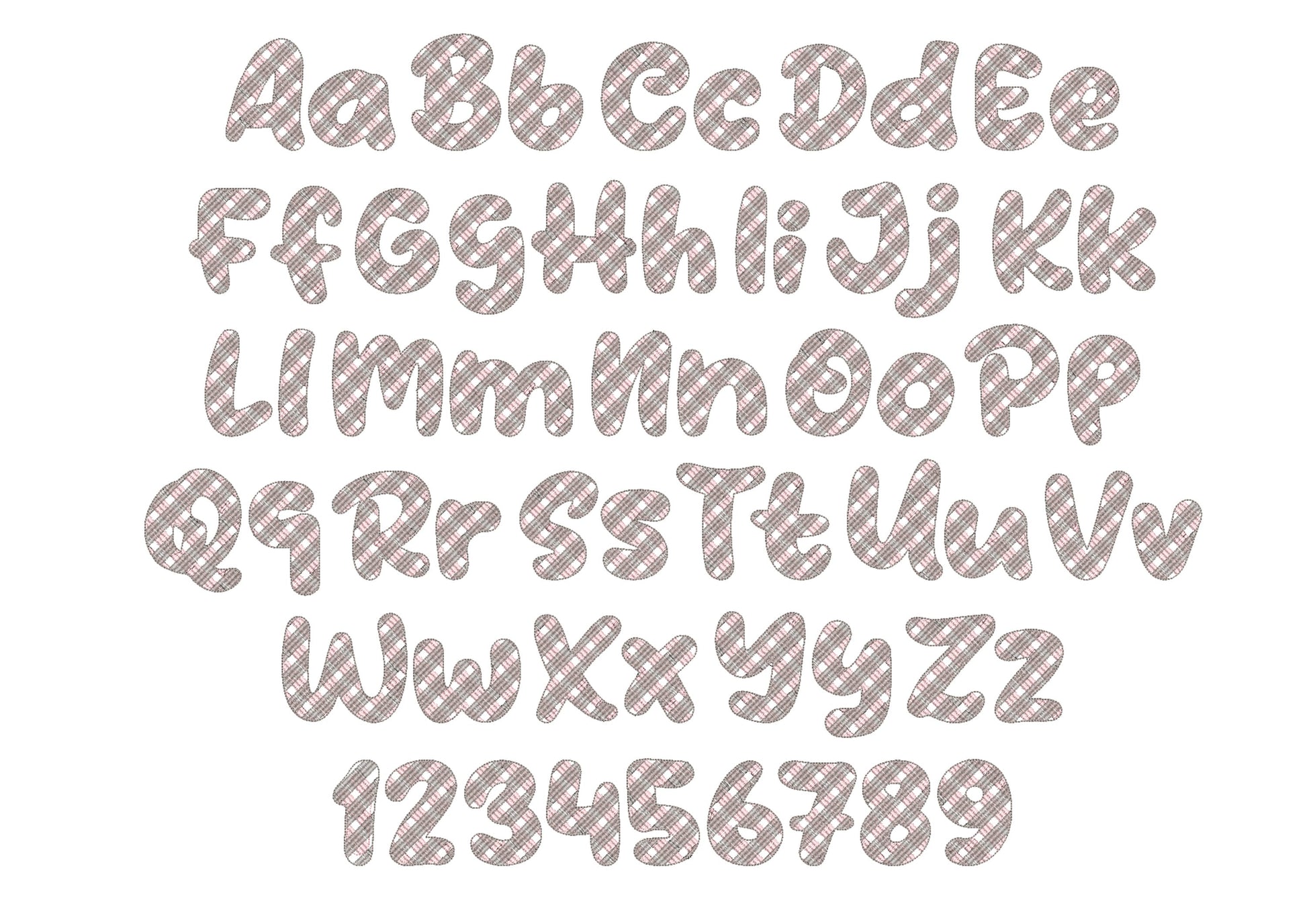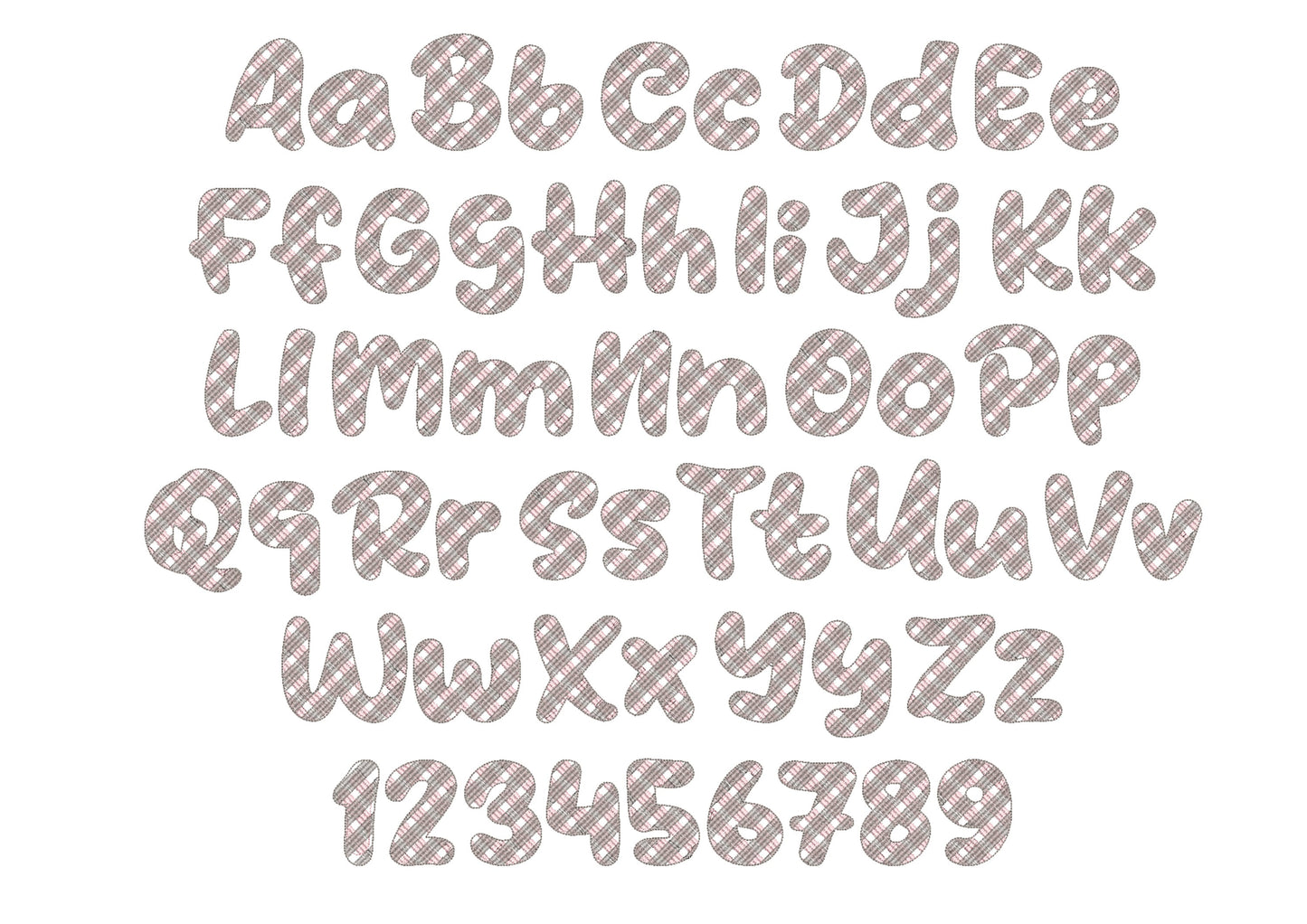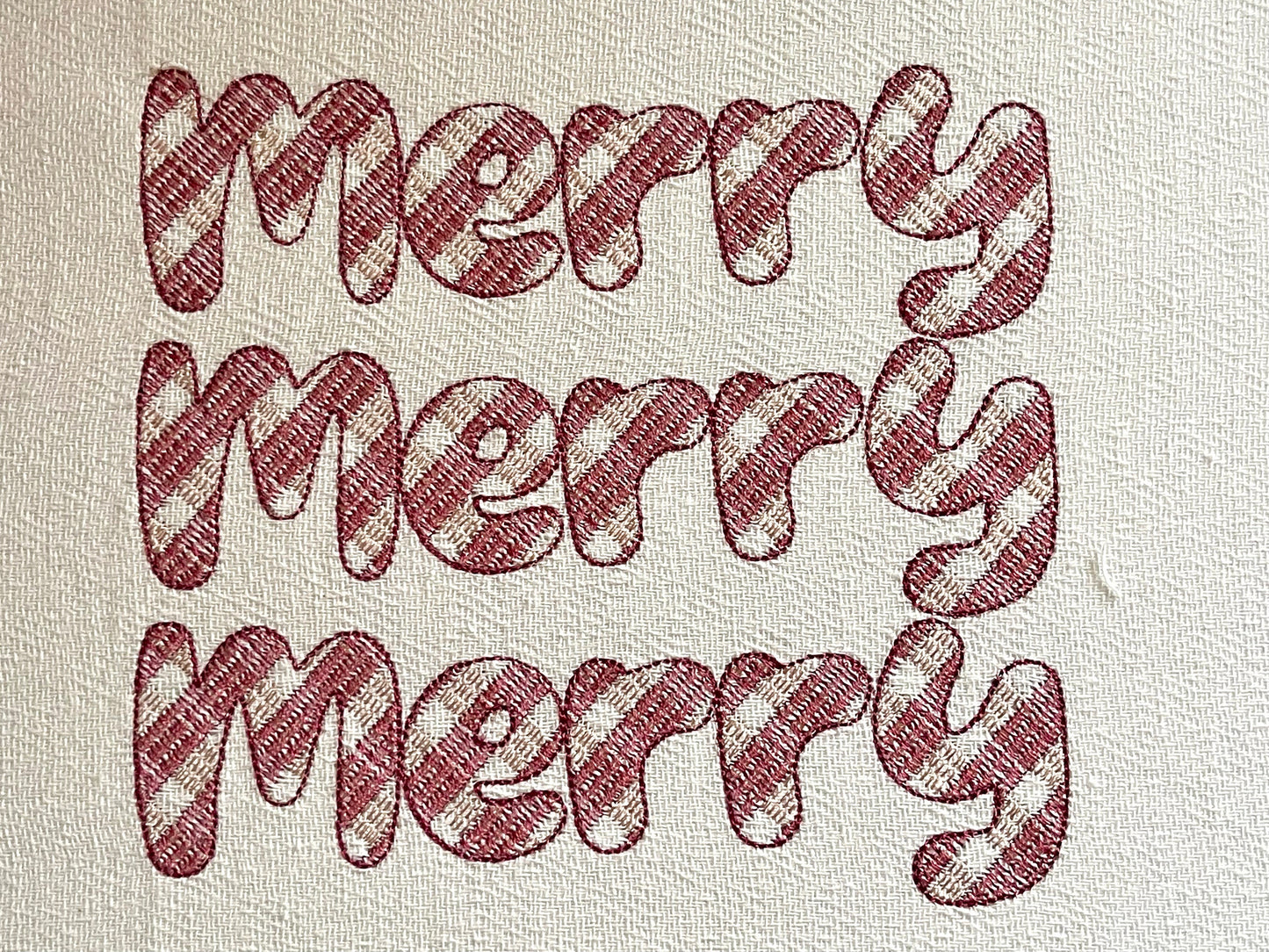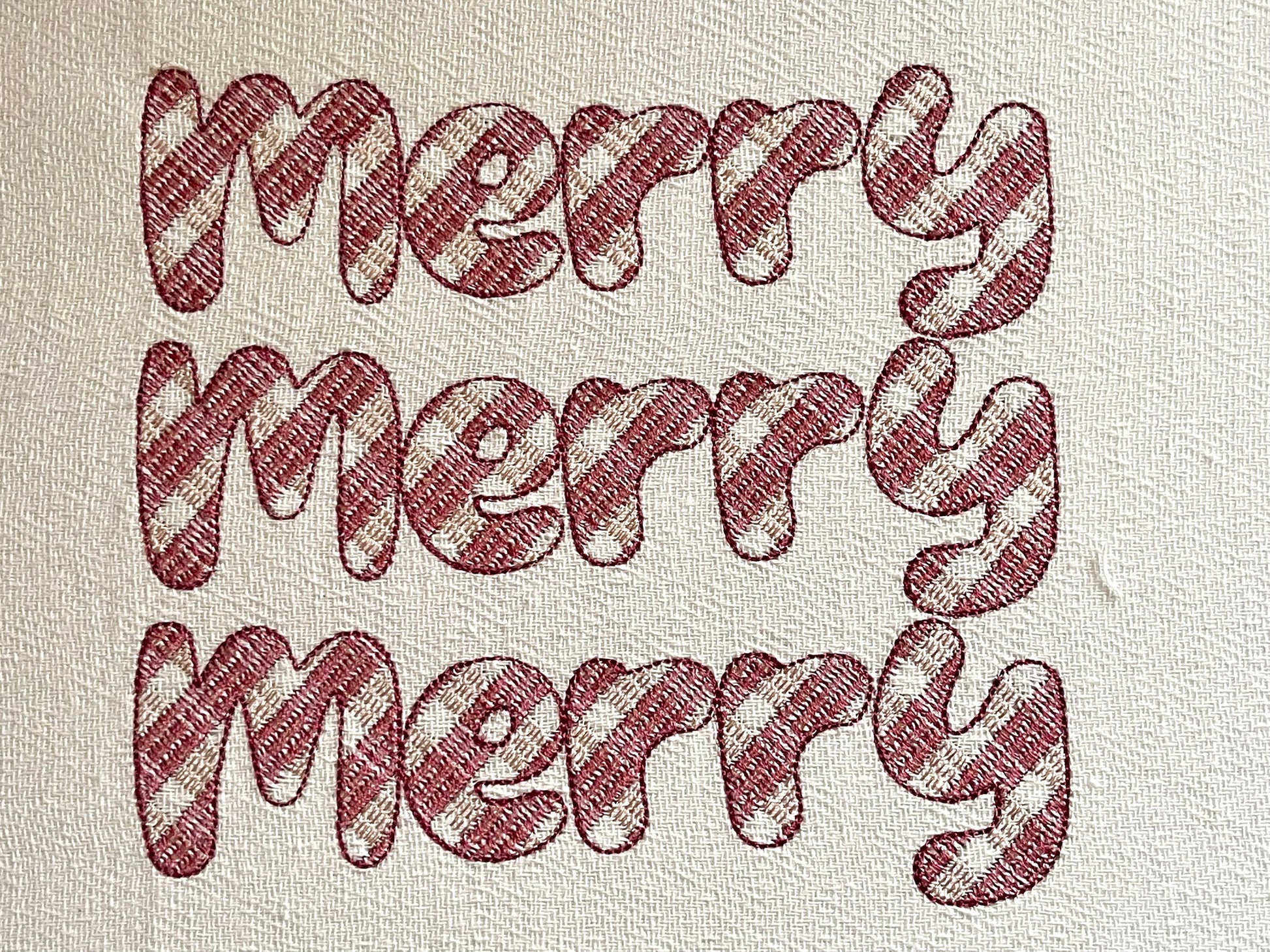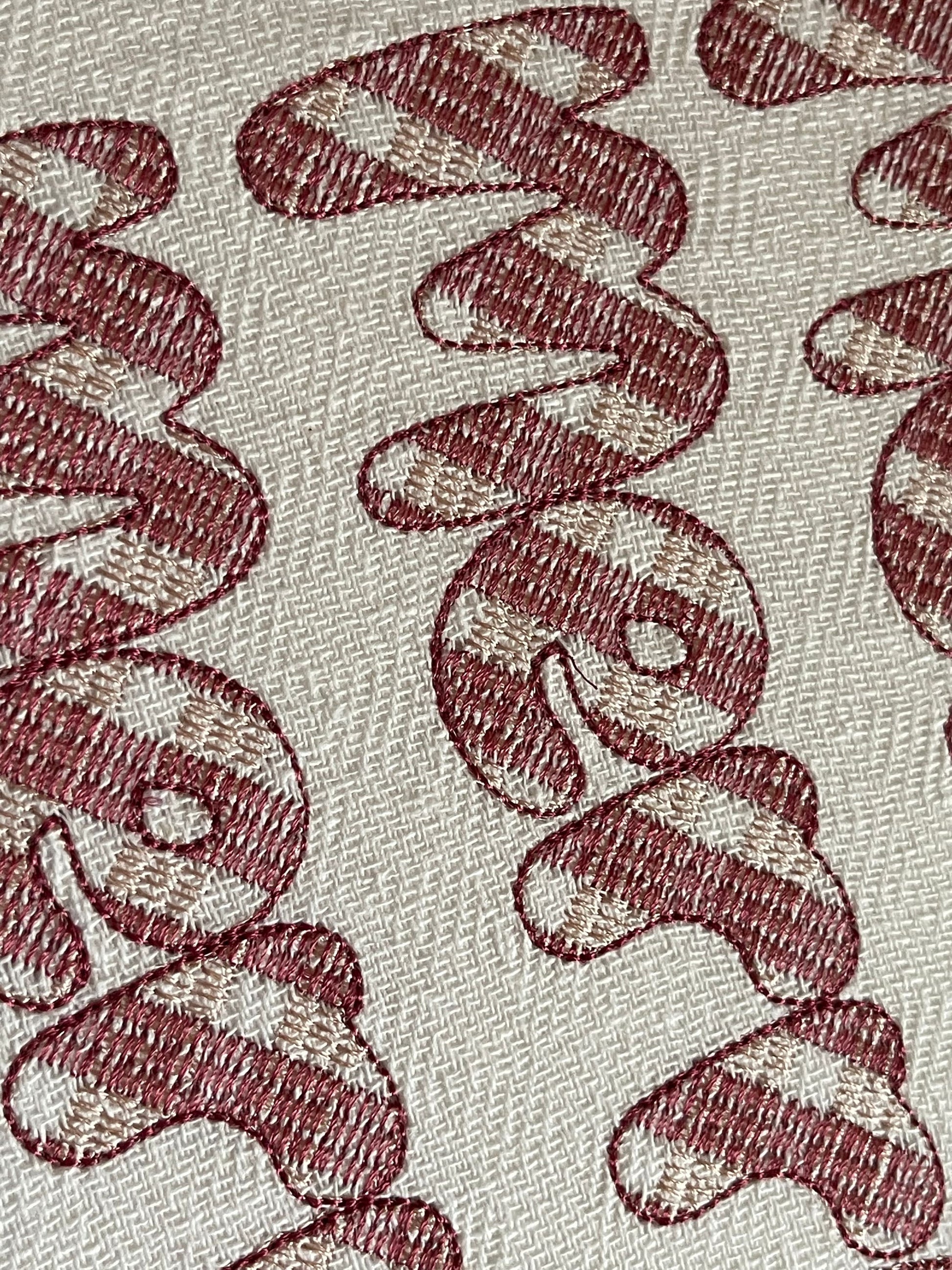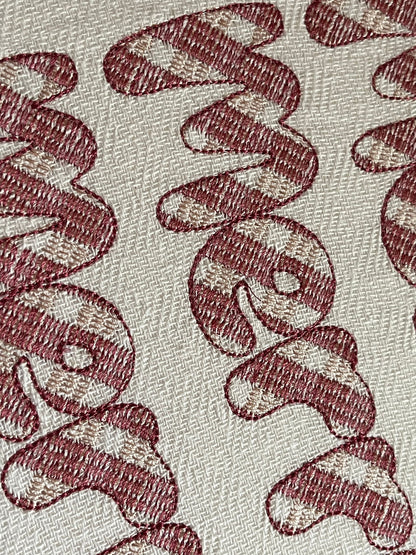
Or click to open the linkA retro gingham font in very light sketch stitching. The gingham pattern is part of the letters and the fabric shows through. Fun for pillows, shirts, stockings and names.
Uppercase and lowercase letters, numbers 0 to 9 and punctuation, in seven sizes: 0.8, 1, 1.3, 1.6, 2, 2.5 and 3.2 inches.